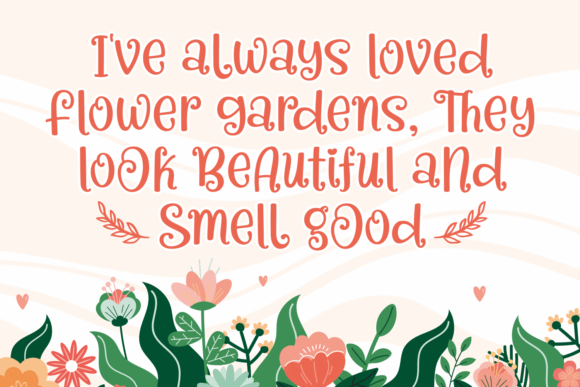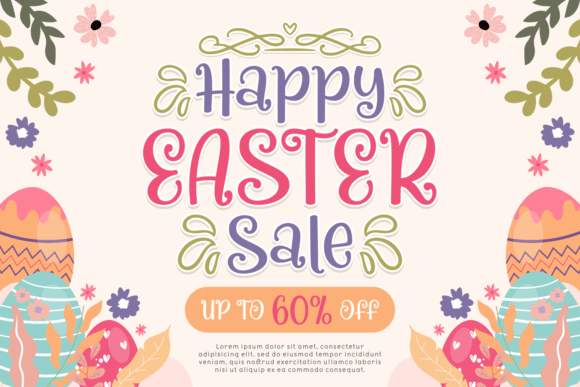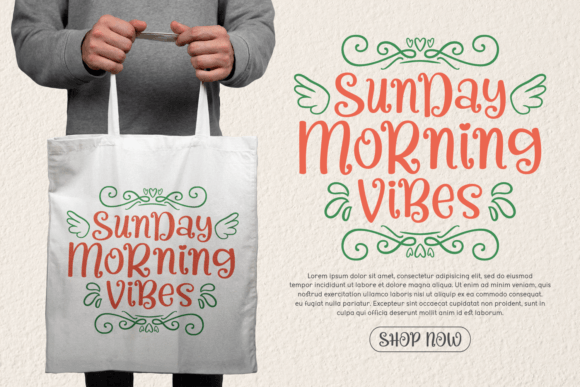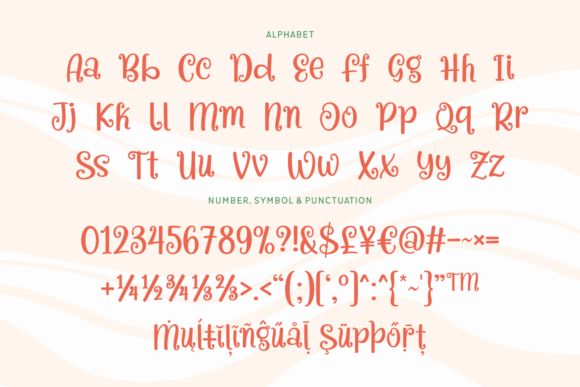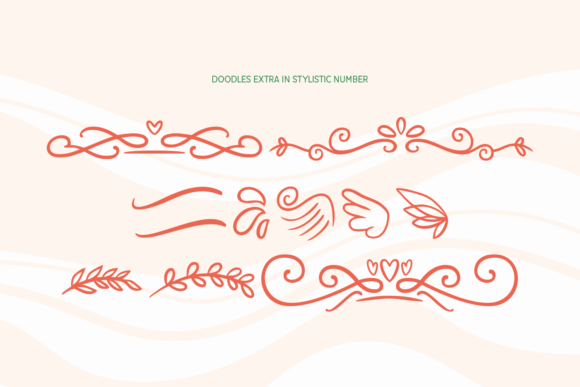
Introducing Bright Garden Font: Elevate Your Designs with Elegance and Sophistication
In the world of typography, a font can make or break a design. It’s the perfect blend of style, elegance, and personality that can elevate a project from ordinary to extraordinary. If you’re on the hunt for a font that exudes sophistication, charm, and a touch of whimsy, look no further than Bright Garden Font. This stunning handwritten font is designed to add a personal touch to your projects, making them truly unforgettable.
The Beauty of Bright Garden Font
Bright Garden Font is a masterpiece of modern typography, boasting delicate and flowing strokes that create a sense of elegance and beauty. Its stylish and modern design adds an element of sophistication and style, making it perfect for a wide range of applications. Whether you’re working on a branding project, crafting invitations, or designing marketing materials, Bright Garden Font is the ideal choice.
One of the standout features of Bright Garden Font is its PUA (Private Use Area) encoding. This means that you can access all the delightful glyphs and swashes effortlessly, giving you unparalleled creative control. With PUA encoding, you can easily swap out characters and swashes to create a unique look that reflects your brand’s personality.
Bright Garden Font is a versatile font that’s perfect for designers and crafters alike. Its stylish and lovely design makes it an excellent choice for a variety of projects, including:
- Branding: Create a lasting impression with Bright Garden Font, perfect for logos, business cards, and other marketing materials.
- Invitations: Make your invitations truly special with Bright Garden Font, ideal for weddings, baby showers, and other celebrations.
- Marketing Materials: Elevate your marketing materials, such as brochures, flyers, and posters, with Bright Garden Font’s elegant and sophisticated design.
Why Choose Bright Garden Font?
With so many fonts to choose from, why should you choose Bright Garden Font? Here are just a few reasons:
- Unique and Eye-Catching: Bright Garden Font is a one-of-a-kind font that’s sure to grab attention and leave a lasting impression.
- Elegant and Sophisticated: Its delicate and flowing strokes create a sense of elegance and beauty, perfect for high-end brands and luxury projects.
- Versatile: Bright Garden Font is perfect for a wide range of applications, from branding and invitations to marketing materials and more.
- Easy to Use: With PUA encoding, you can easily access all the glyphs and swashes, making it simple to create a unique look.
Tips for Using Bright Garden Font
To get the most out of Bright Garden Font, here are a few tips:
- Experiment with Swashes: Don’t be afraid to try out different swashes and glyphs to create a unique look that reflects your brand’s personality.
- Pair with Other Fonts: Bright Garden Font pairs perfectly with other fonts, so don’t be afraid to experiment with different combinations.
- Use for Headings and Titles: Bright Garden Font is perfect for headings and titles, adding a touch of elegance and sophistication to your designs.
In conclusion, Bright Garden Font is a stylish and lovely handwritten font that’s perfect for projects that need a personal touch. Its delicate and flowing strokes create a sense of elegance and beauty, while its stylish and modern design adds an element of sophistication and style. With PUA encoding, you can easily access all the delightful glyphs and swashes, making it simple to create a unique look. Whether you’re a designer or crafter, Bright Garden Font is an excellent choice for a wide range of applications.